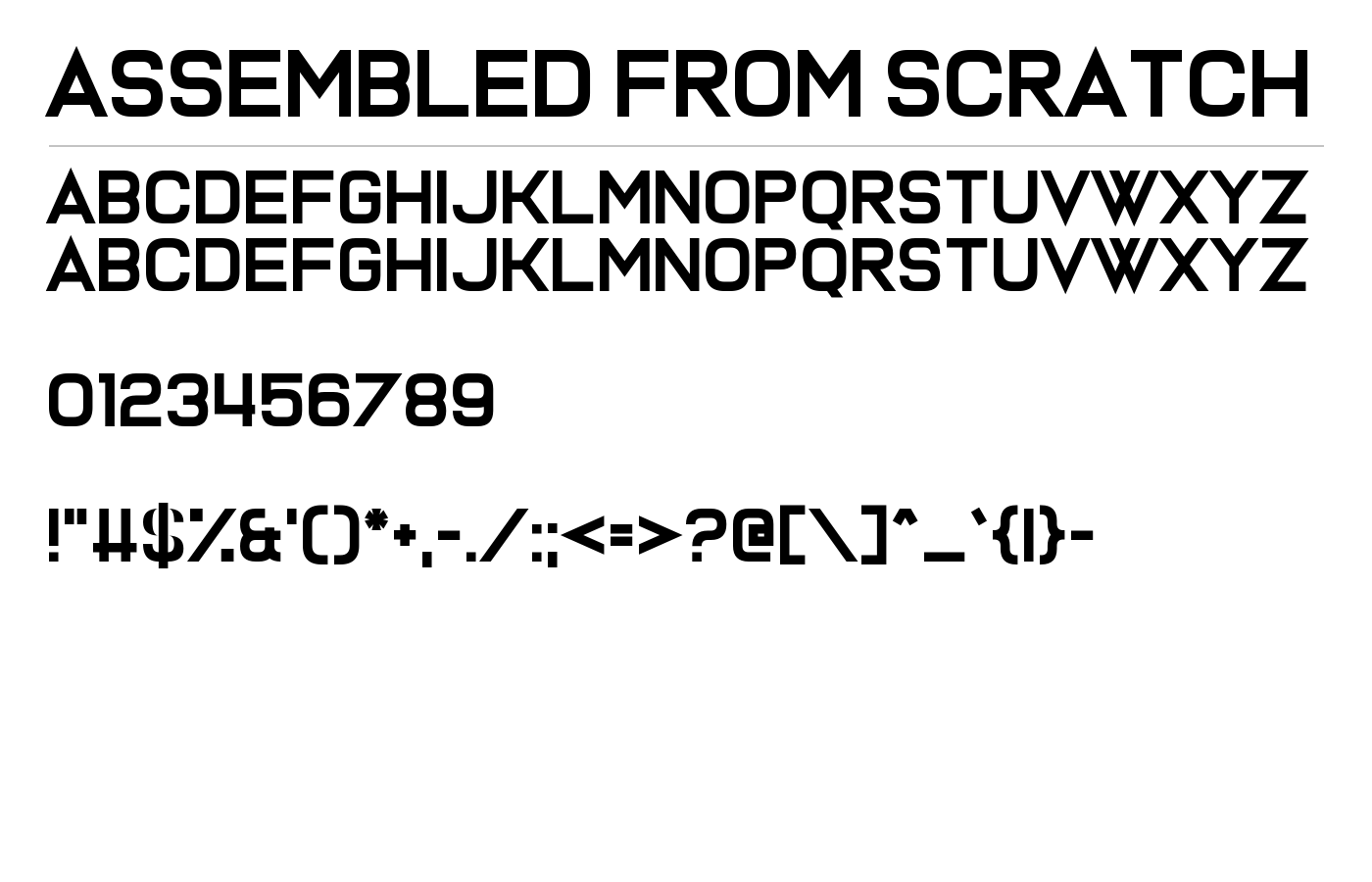
Assembled From Scratch is a modern, sans serif typeface with a clean, geometric structure and medium weight that gives it a strong yet approachable presence. Its squared shapes, uniform stroke contrast, and slightly condensed width make it highly legible and ideal for contemporary branding, headlines, and editorial design where a sleek, professional look is desired. This font works well in digital and print settings, especially for tech, fashion, or creative industries seeking a stylish and confident visual voice.
Assembled From Scratch Font
About Assembled From Scratch Font